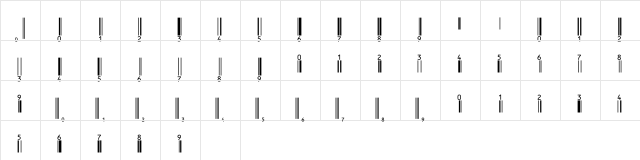
UpcEP36Tt Normal Font Preview
UpcEP36Tt Normal
UpcEP36Tt Normal Font Details
Design Context for UpcEP36Tt Typeface
UpcEP36Tt takes a measured approach to typography — its balanced proportions and neutral character make it a reliable workhorse for both digital and print work.